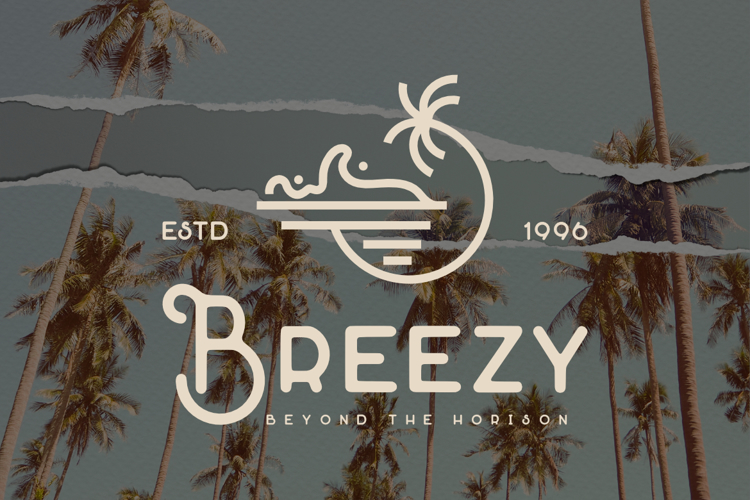
The Rooper Font
The Rooper Vintage Monoline Font, This font is made with a high premium quality level which you can use as flyers, quotes, posters, banners, packaging, merchandise, logotypes and much more.